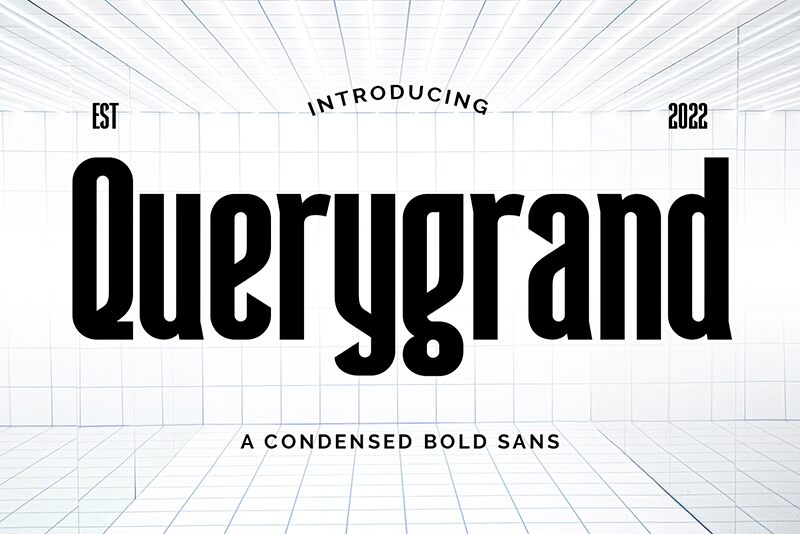
Querygrand
Querygrand, a creation by Almarkhatype, is a sans serif font that stands out with its distinctive condensed style. Balancing sophistication with modernity, its sleek and compact design captures attention while remaining highly legible. This font's assertive presence makes it an ideal choice for impactful headlines and branding where space is at a premium yet readability cannot be compromised.
The elegance of Querygrand lies in its ability to convey messages with both efficiency and flair, making it versatile for print media, digital interfaces, and minimalist advertising. Its unique character ensures that any text dressed in Querygrand makes a memorable impression.